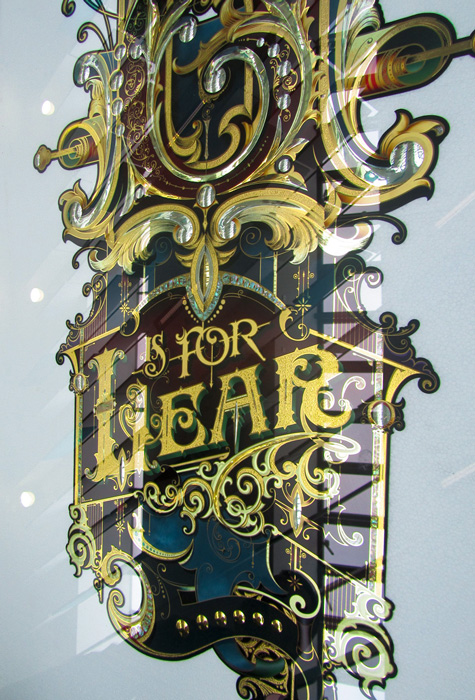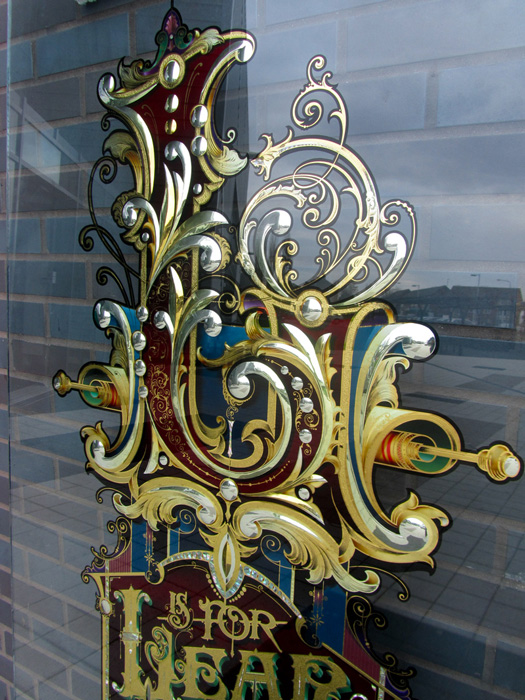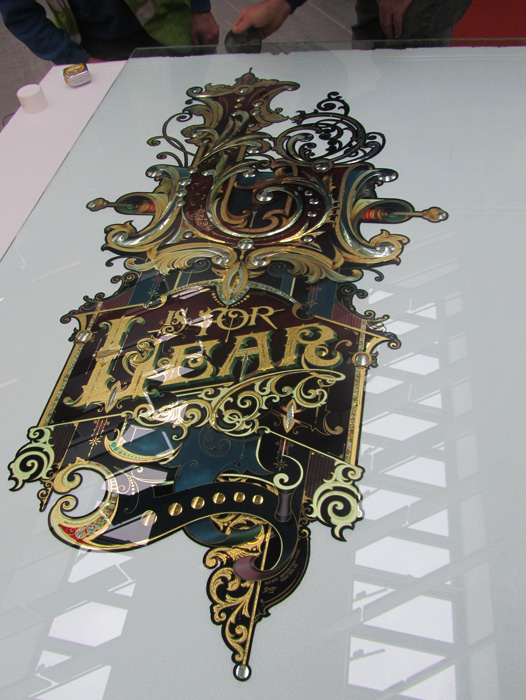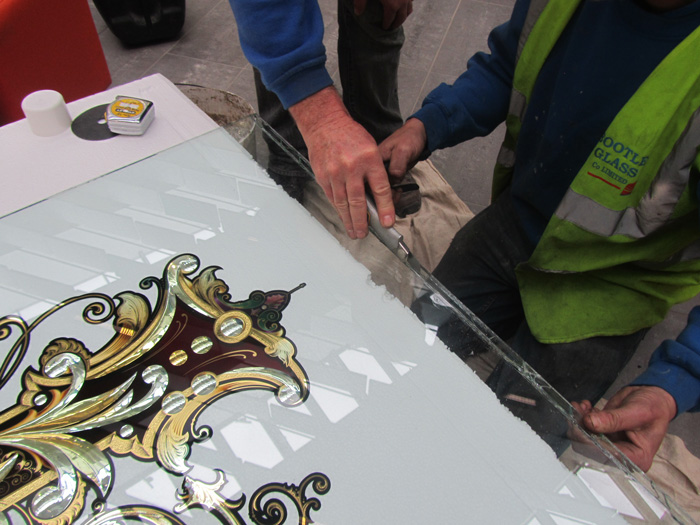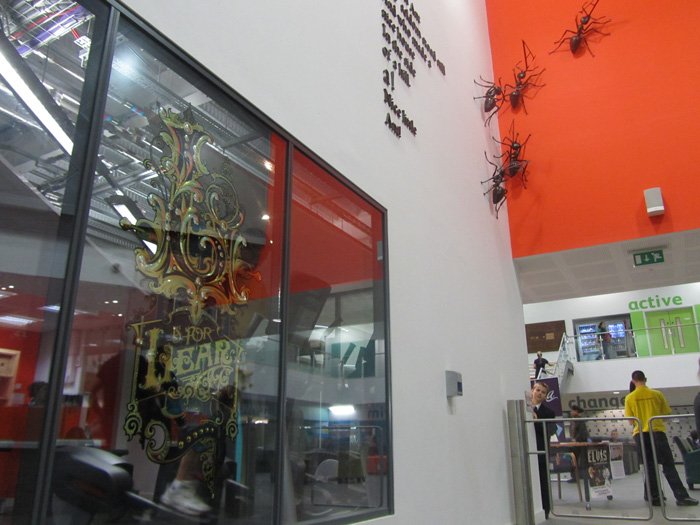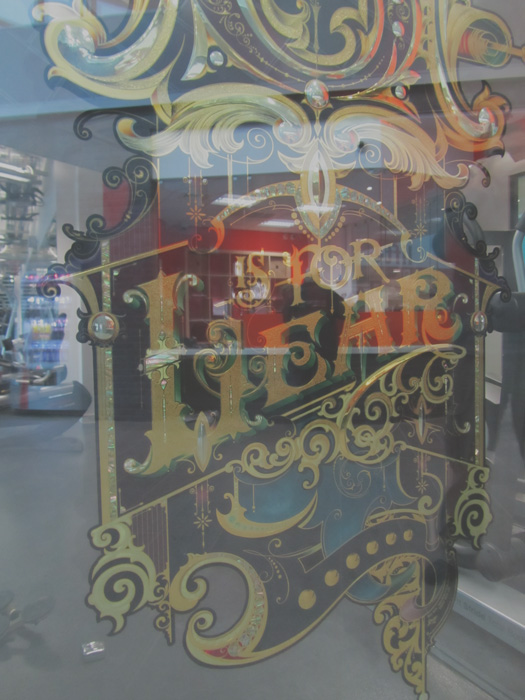
Lear
Ofcourse it useless to write here that the panel looks amazing, because every dumpass knows it IS amazing (even me 8) ).
Amazing is it? Hmmm....It's OK I suppose...
A bit overblown. Smacks of try-hard-ism. Too many bloody curly bits! Makes me wither to have to fight through so much decoration. The textures and finishes are a bit ho-hum...We've seen it all before Dave. Same old etch, same old cutting, same old gold. Pearl inlays and blended shadows? give me a break.....Stop wearing out the same old path with the mock-Victorian salute to a dead era. Give us something to get excited about.
So...is my knife too sharp?...Nah!...Just offering Dave some constructive criticism to help him progress from enthusiastic student to journeyman....(b@stard! hahaha)
You've outdone yourself, again - despite all those bothersome curly thingies.
Wish I could see it in person. I would love to see the other letters of the alphabet as well. I'm sure there are a lot of creative approaches. But there's nothing like gold on glass, especially when designed and executed with your multi-leveled skills and talent. What a joy to see it.
Again, simply sensational. Question: Do you use a stop-line or mask to contain the blended shades? Thanks for your kind advice. Bob
Brutal Bruce,,, Just Brutal :shock:
You really need to do some Training DvDs for us Poo Slobs that can't make it England to learn. Classroom in a book/DvD sorta thing..
Brutal?...yeah, a bit...I know sarcasm doesn't always work online......but you have to remember. Dave is a pom...and I'm a colonial....So it is in our cultural heritage to be able to get away with high praise dressed as dismissive insult...hahaha....he'll know it's a mark of my admiration.
Just back from Liverpool after 2 days of fitting glass to find some well deserved colonial banter. Bill once a pom beats an Aussie at Rugby especially a world cup game they will never get over it ( cultural heritage ) does play a big part here . I will admit though I did find your last post full of humouras sarcasm Brutal Bruce, made me laugh! from now on I am sticking to Helvetica medium uppercase black outlined with water gilded centres, at least then it will be readable. and I promise no scrolls... now on the otherhand the next few photos you will find funny especially trying to cut off a one inch piece of half inch glass because someone measured the panel wrong and then having to put the whole panel behind a tinted piece of glass due to fire regulations, what has become of this world( health and safety gone mad).... may as well have just used double sided gold foil vinyl... lol . Thanks Bruce
Robert. The stop line ( black in this case) is hand painted first and then I brush blended over it with the greans once it was dry, no masks just good old fashioned signwriting.. Thanks Bob.
Dan. thanks ,glad to hear your still using the Smith Tip. I could never get on with it and still just gild normally... ha ha
Well this was the home for the Lear piece. All this work and finally hidden behind a nice piece of tinted glass but hopefully not for long.
Luckily the glass did not break when these guy's started to decrease the size of it after a wrong measurement was given to me at the start, funny thing is I asked the people who were paying for this to measure the openning three times just incase. always measure twice and cut once they say... not this time round.. should of driven there and measured it myself. Hopefully this will be moved after Christmas the back painted in a chosen colour with a possible gided boarder and then frames in Mahogany and put in a place within the building to show it full glistening potential....
cutting down the glass
and the tinted smoke screen that hides the work
nice hey! shows up really well.. not!
What an idiots....
We know how it should look.
I'll bet the man that ran that glass cut fell into the nearest pub for a pint!
On closer look, I see it was laminated glass as well. Add another pint! :wink:
Pat. He was confident and realised the work that had gone into the panel, and your right laminated glass cut from both sides set fire to meths on the length of the panel to stretch it ,at which point if left too long can crack the panel, he was stressed but was hiding it well. In the picks his mate is cutting through the laminate which was pretty thick. The plan now is to go back take it out ,bring it back ,paint the back and frame it and get it up on the wall in the museum to be viewed at the correct height without a smoked piece of glass in front . Luckily when I was there the client who I had never met agreed that this should happen and that they have the funds to cover the extra work...
Okay, that analogy was a bit rough, quite unlike the finished project here which is stunning. Any idea of how many hours you've got in this? I have the attention span of a gnat, anything more than 2 or 3 days on a project and I'm spent.
Hi Duncan. I have roughly four weeks work in the panel including making the design, I was not working on it every minute of the day but certainly a good portion of it.